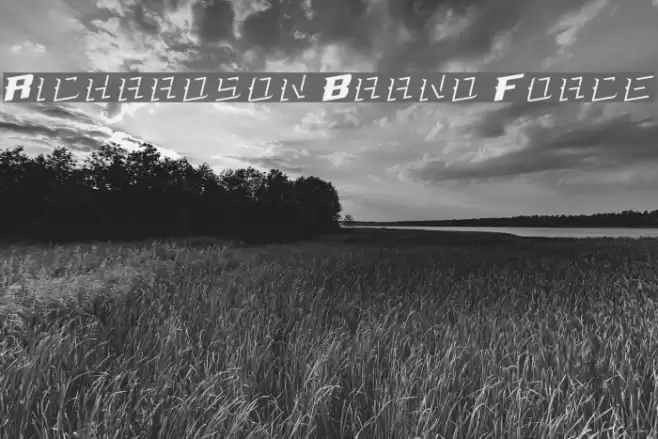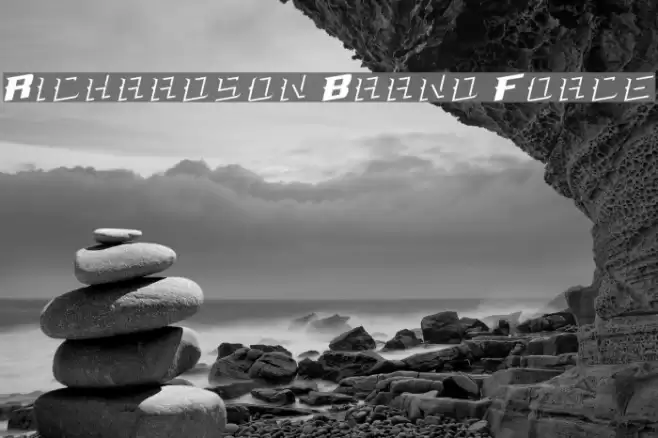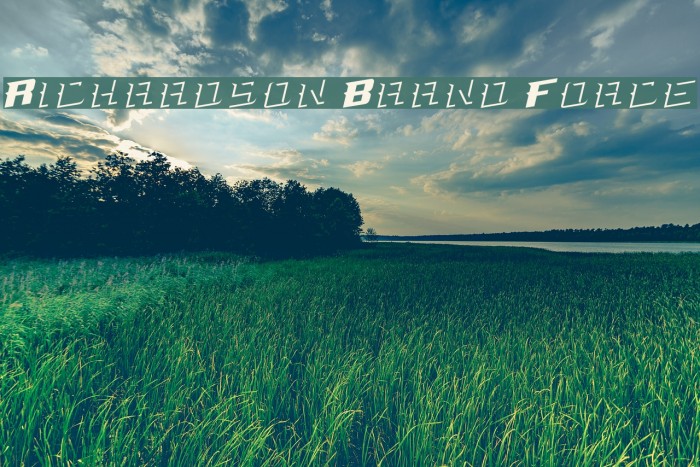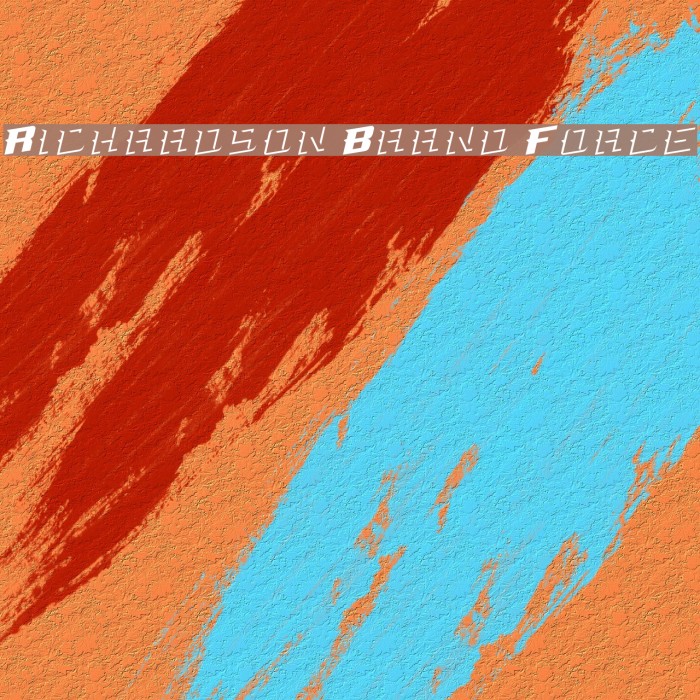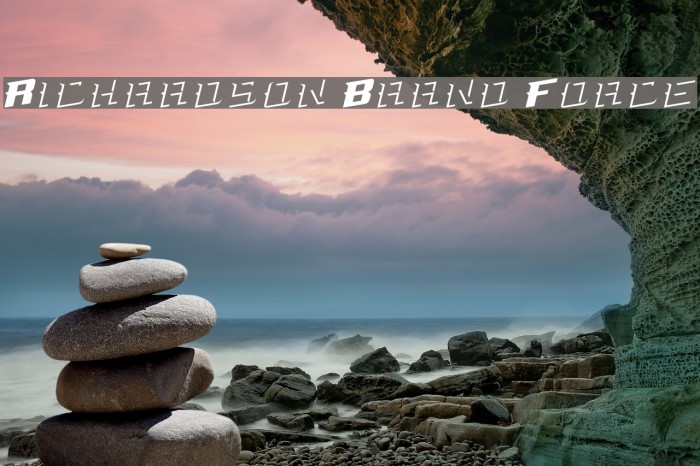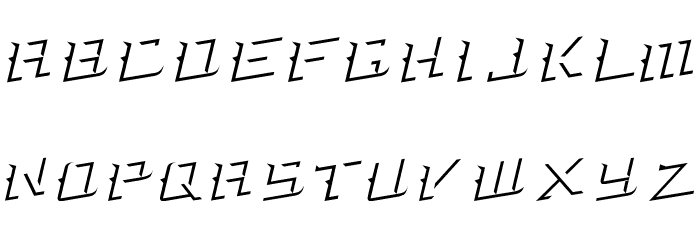
Richardson Brand Force Font
Richardson Brand Force Description
This font features a bold, angular design with a dynamic and aggressive appearance. The uppercase letters are particularly striking, with sharp edges and a forward-leaning stance that conveys a sense of motion and power. The lowercase letters maintain this angular style but are slightly more restrained, providing a nice balance. The numbers and special characters follow the same design principles, ensuring consistency throughout. This font's unique style makes it stand out, ideal for projects that require a strong visual impact.
- Proposed Projects: Perfect for sports branding, action movie posters, video game titles, and any project needing a strong, impactful typeface.